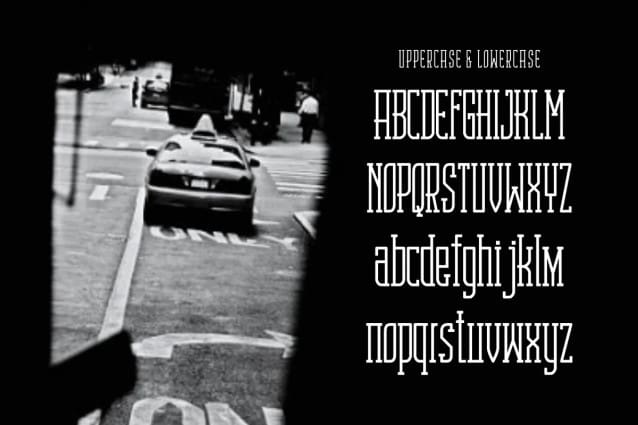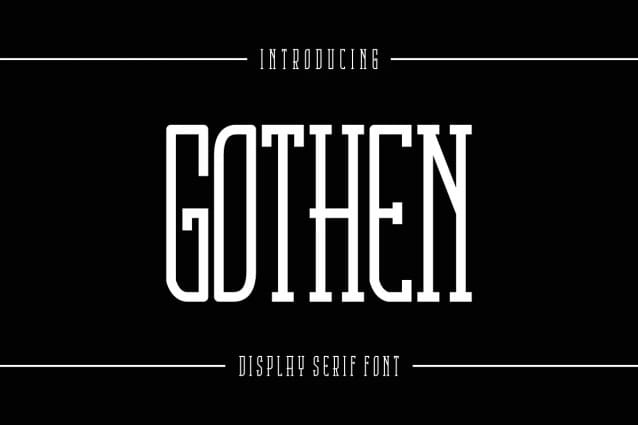
Gothen Font
Gothen Font, is a bold and assertive serif font. No matter the topic, this font will be an incredible asset to your fonts’ library, as it has the potential to elevate any creation.